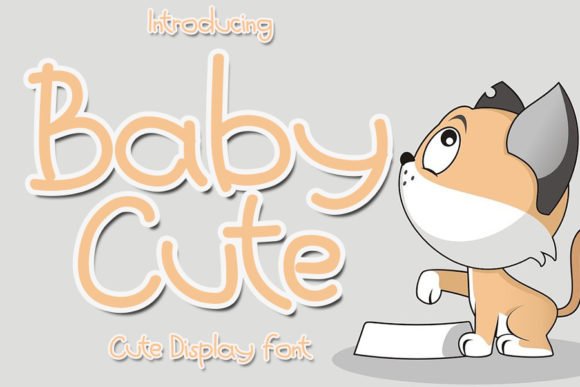
The Quirky World of Baby Cute Font
Have you ever stared at a piece of stationery, a cute t-shirt, or a product label, and just felt an instant smile creep up on your face? That’s the magic of creative design, and it’s exactly what the Baby Cute Font is all about.
Baby Cute is a playful, handwritten font that’s designed to capture the whimsy and charm of everyday life. Whether you’re creating a brand identity, designing product packaging, or crafting a heartfelt invitation, this font is the perfect tool to add a touch of personality to your work.
For designers, the Baby Cute Font is a valuable asset that can help bring your ideas to life and connect with your audience on a deeper level. Its versatility and charm make it an essential addition to any design toolkit, and we can’t wait to explore its many uses and possibilities in this article.
Baby Cute Font Key Features
- Font Family: Baby Cute Font, a playful and adorable font designed for various applications.
- Unique Characteristics: Features a distinctive, rounded design with exaggerated features, perfect for creating a baby or child-related theme.
Designer Review: Baby Cute Font
Overall, I think Baby Cute Font is a cute and playful addition to any design project. ✨ The font’s rounded edges and childlike feel make it perfect for creating a whimsical atmosphere, especially in designs targeting young audiences. I love how it can add a touch of innocence and sweetness to text.
- Works well in titles and headings: Baby Cute Font is particularly effective when used in larger font sizes, adding a playful touch to headings and titles.
- Perfect for kid-friendly designs: The font’s childlike feel makes it ideal for designs targeting children, such as children’s books, toys, or educational materials.
- Cute variations: The font includes various styles and weights, offering designers a range of options to suit their design needs.
However, there are some limitations to consider. ⚠️ The font may not be suitable for professional or formal designs, as its playful nature may come across as unprofessional. Additionally, the font may be a bit too childish for designs targeting older audiences.
Overall, I think Baby Cute Font is a fun and creative addition to any designer’s toolkit. While it may not be suitable for all design projects, it’s perfect for designers looking to add a touch of playfulness and whimsy to their work.
Tips for Getting the Most Out of Baby Cute Font
For best results, use Baby Cute Font for titles, headings, and emphasis. Avoid using it for large blocks of text, as it can become overwhelming. You can also combine Baby Cute Font with other fonts to create a unique and playful look.
Baby Cute Font is perfect for:
- Children’s books and educational materials
- Marketing campaigns for baby and kid-related products
- Personalized gifts and invitations
- Social media graphics and posts